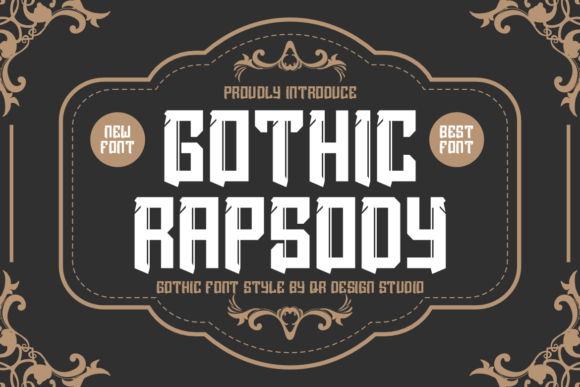
In a world where words dance and characters ignite tales, meet Gothic Rapsody Font, a blackletter masterpiece that's pure audacity in motion. With its bold and sturdy presence, this font is a symphony of strength and grace, leaving an indelible mark on your designs.
This isn't just a font; it's a visual odyssey that captivates audiences and ignites imaginations. Each letter is a stroke of brilliance, a mesmerizing display of artistry that evokes emotions and sets your words ablaze. Gothic Rapsody Font is a tribute to the power of typography, a testament to the transformative alchemy of letters.
Its versatility is boundless, spanning across a myriad of creative projects. Unleash your creativity with posters that roar with boldness, logos that command attention, and designs that transcend the ordinary. From dark and mysterious themes to vibrant and energetic expressions, this font adapts flawlessly, enhancing your creations with a touch of distinction.
In the realm of branding, Gothic Rapsody Font reigns supreme. Its blackletter charisma radiates an aura of power and sophistication, perfectly embodying the strength and determination of your brand. Whether you seek to conquer the music industry, unleash your passion for sports, or establish a commanding presence in any field, this font is your loyal companion, amplifying your message with unwavering impact.
Experience the allure of Gothic Rapsody Font, a typographic masterpiece that sparks conversations and forges unbreakable connections. Let your words dance to the rhythm of this font's unique beats, and watch as your designs transform into breathtaking spectacles. With its emotional depth and creative versatility, this font is not just a tool; it's an extension of your creative soul.